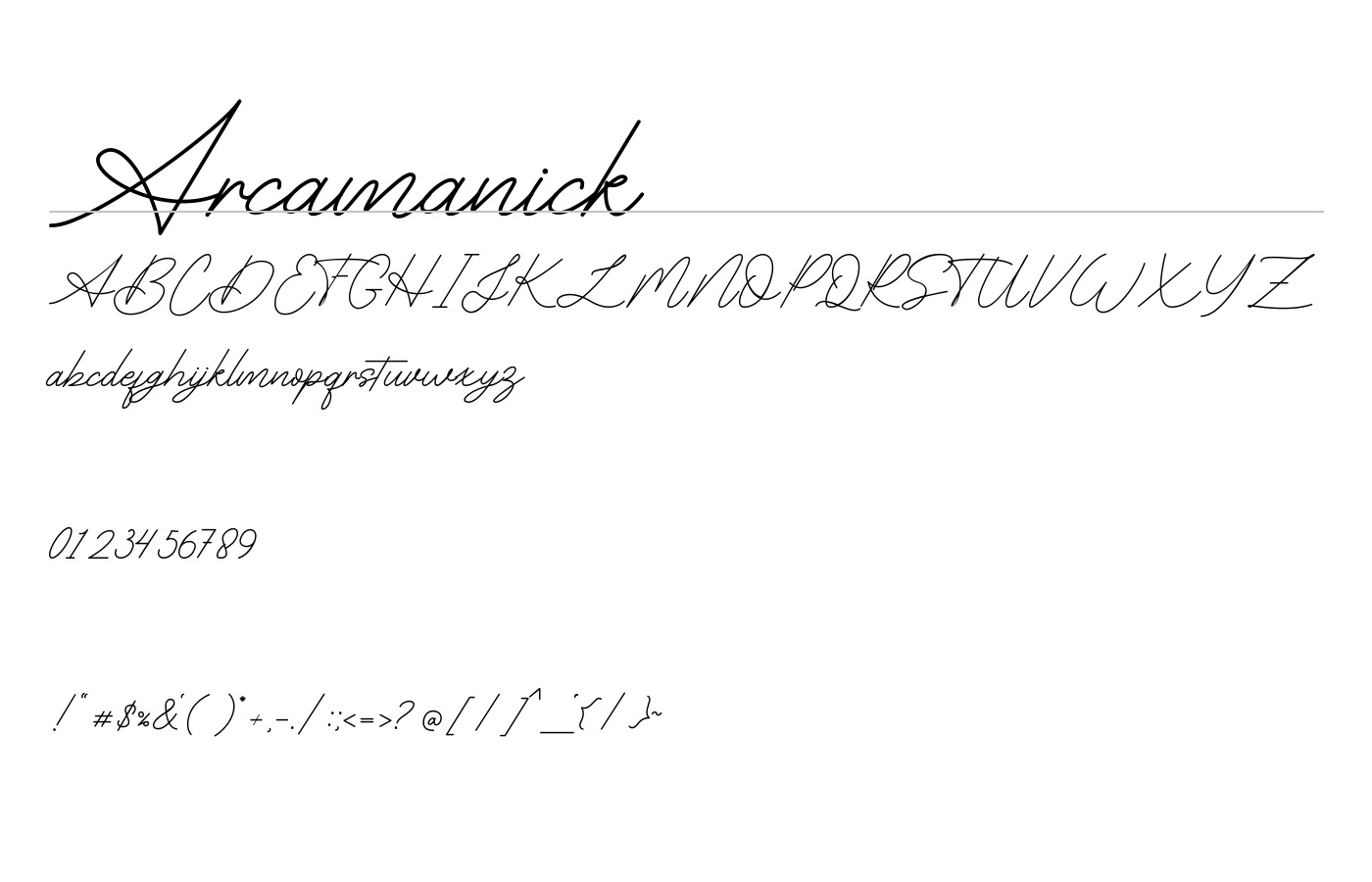
Arcamanick is a delicate, elegant script font featuring slender, flowing lines that mimic graceful handwriting. Its narrow, light strokes and refined curves give it a sophisticated and artistic feel, perfect for invitations, branding, and any design that needs a touch of personal elegance and charm. This font works well in settings that benefit from a stylish, handcrafted look without overwhelming the design.
Arcamanick Font
About Arcamanick Font
| Font family | Arcamanick Font |
| Designer | JunCreative (Muhamad Junaid) @mjart96 |